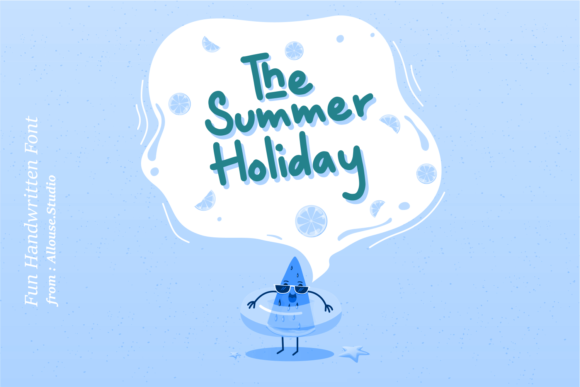
The August Font
The August is a fun and cute handwritten font. It has thick letters and a friendly touch, and as a result, it will match a wide range of informal designs.